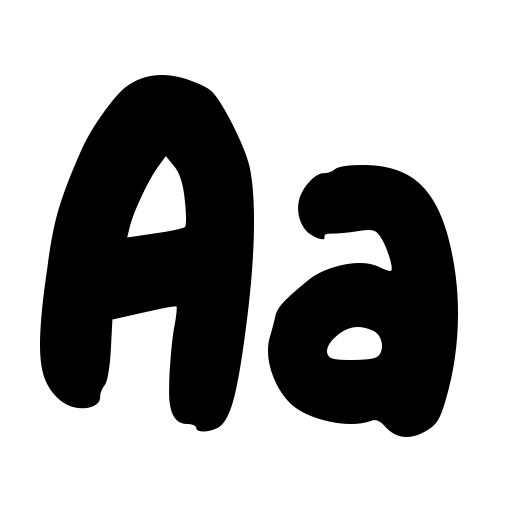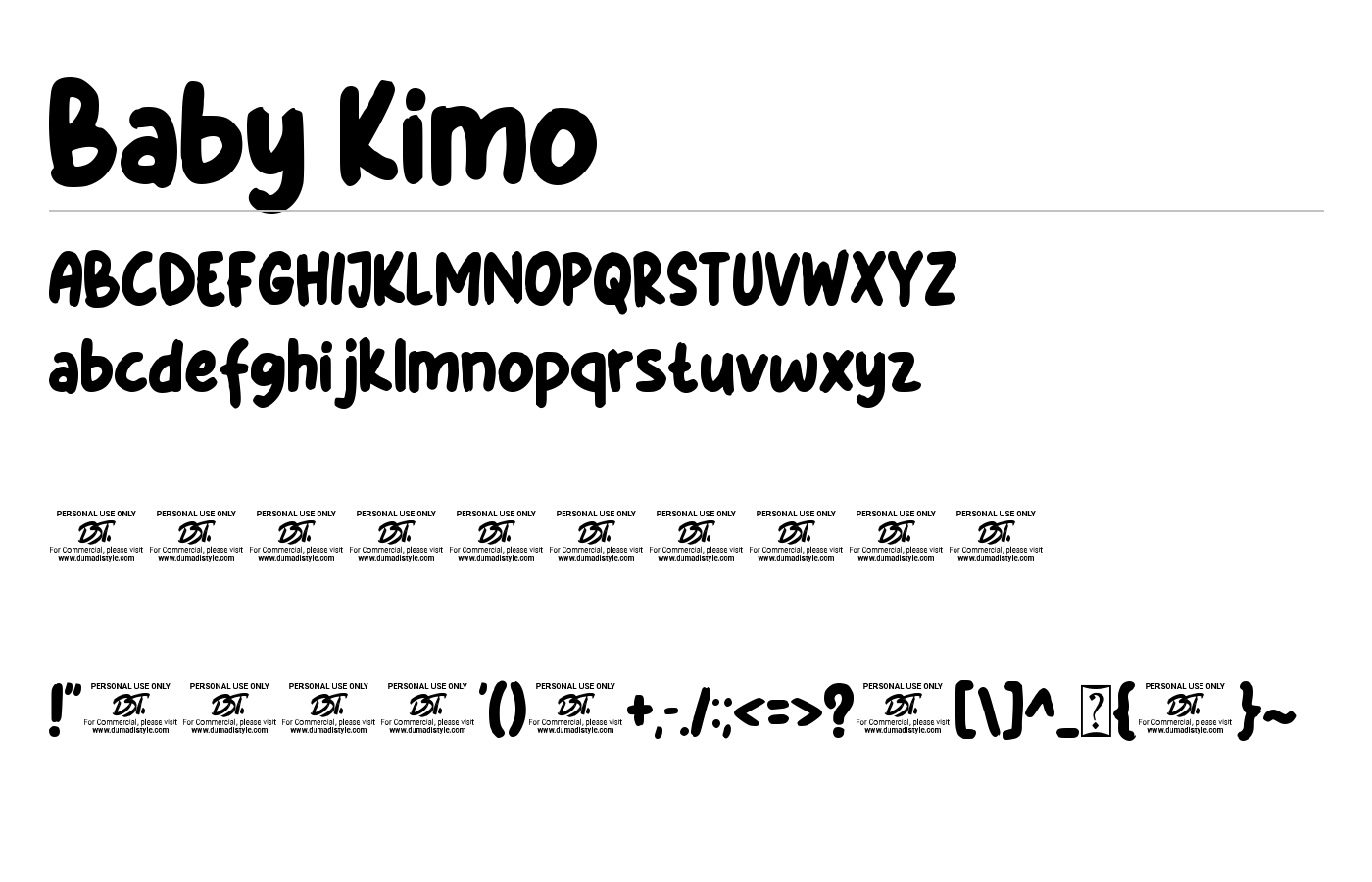
Baby Kimo is a playful, rounded sans-serif font with a bold, friendly appearance and a hand-drawn feel. Its thick, smooth strokes and slightly irregular shapes make it ideal for casual, child-focused designs or creative projects needing a warm, approachable touch. This font works best for logos, posters, and packaging where a fun and inviting personality is desired.
Baby Kimo Font
About Baby Kimo Font
| Font family | Baby Kimo Font |
| Designer | Toni Dzulham |